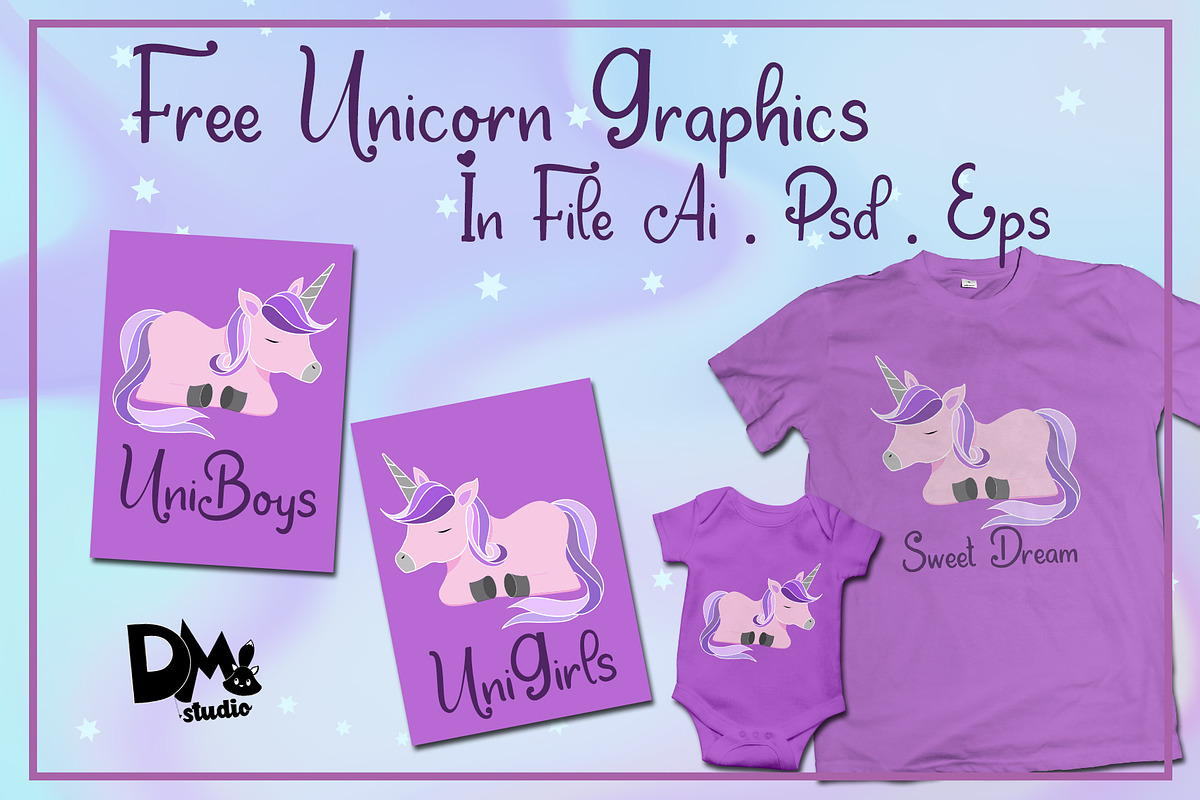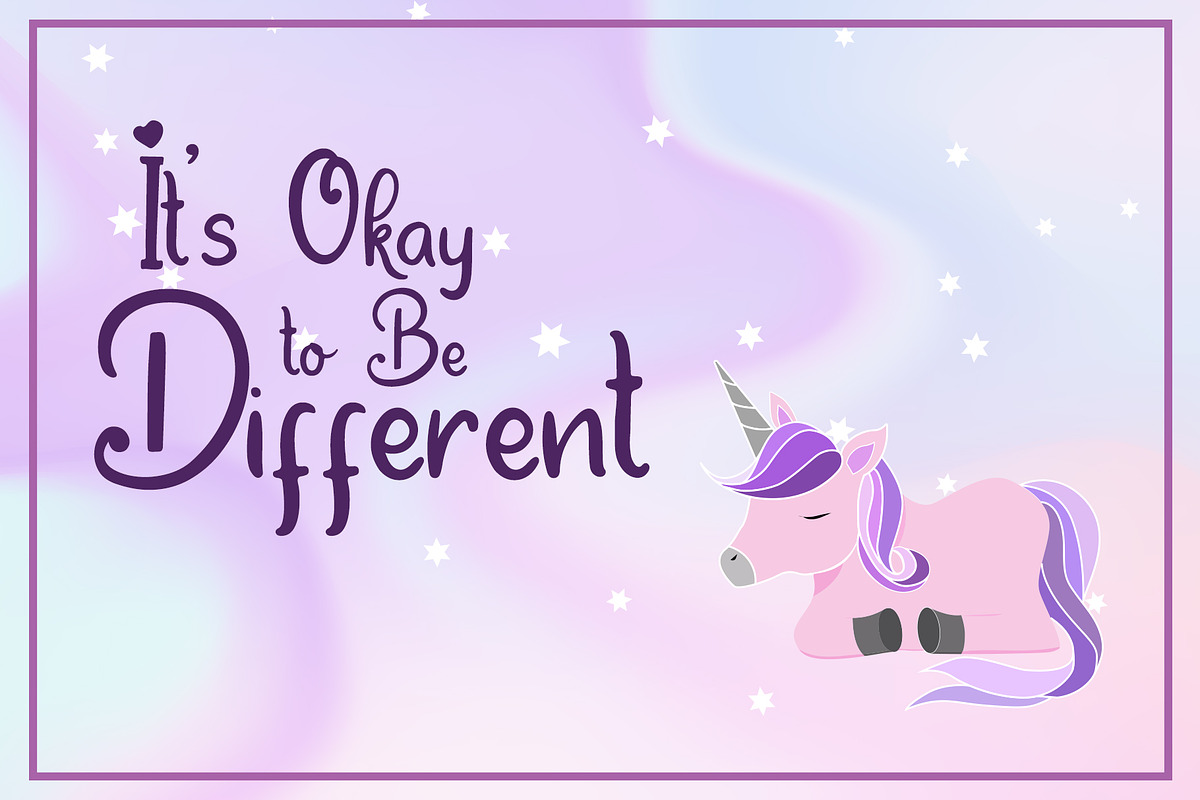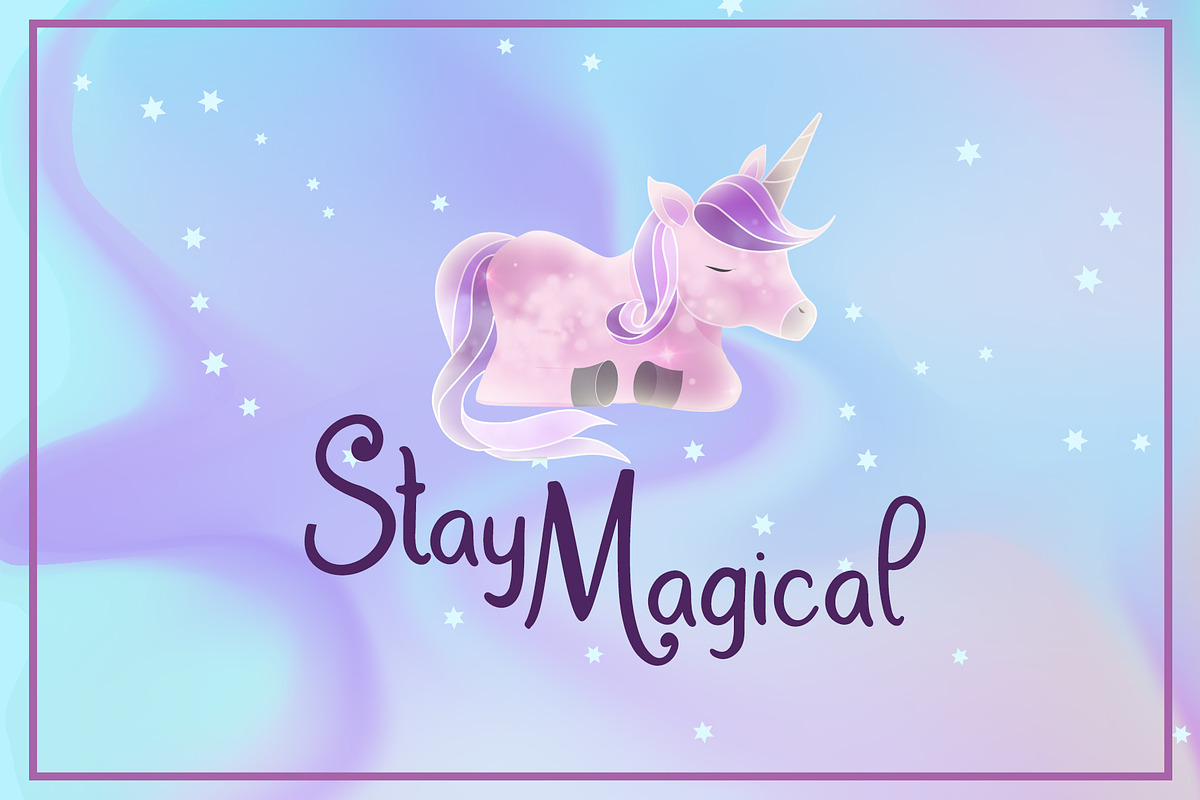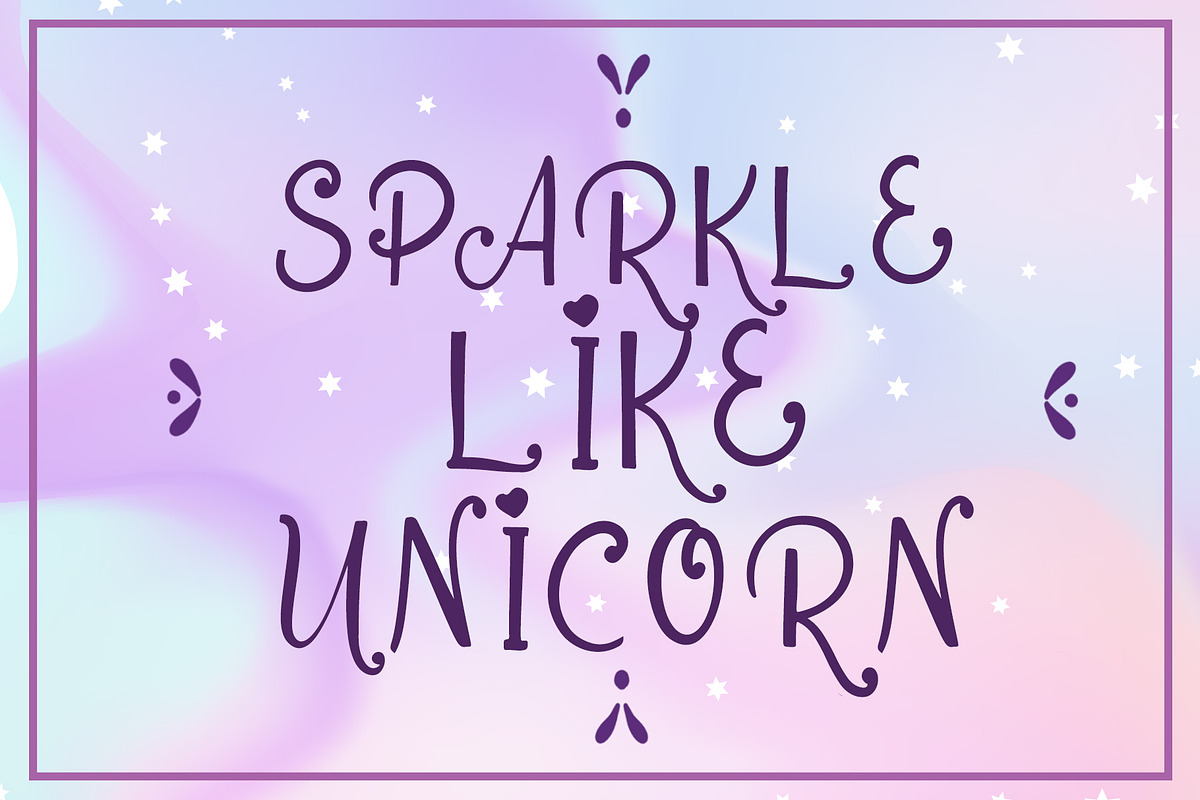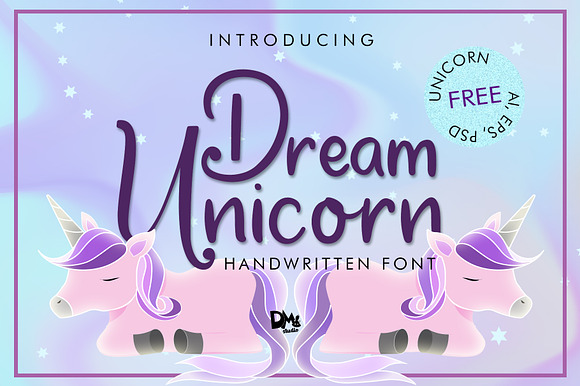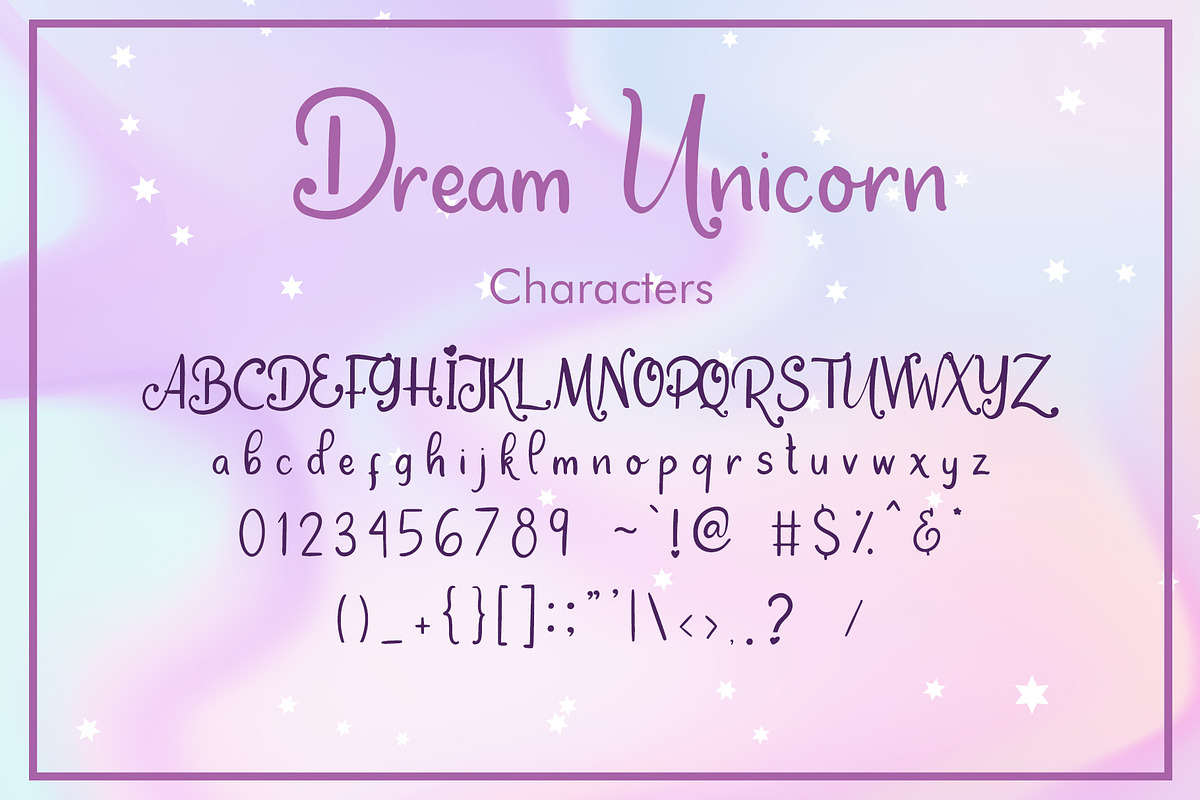
Dream Unicorn - Handwritten Font
Introducing : Dream Unicorn Handwritten Font It's a lovely, cute and sweet handwritten font. Combine with the extra Unicorn draw to make the gorgeous design!
Dream Unicorn - Handwritten Font by Dm Studio fits naturally into Branding, posters, packaging, typography.